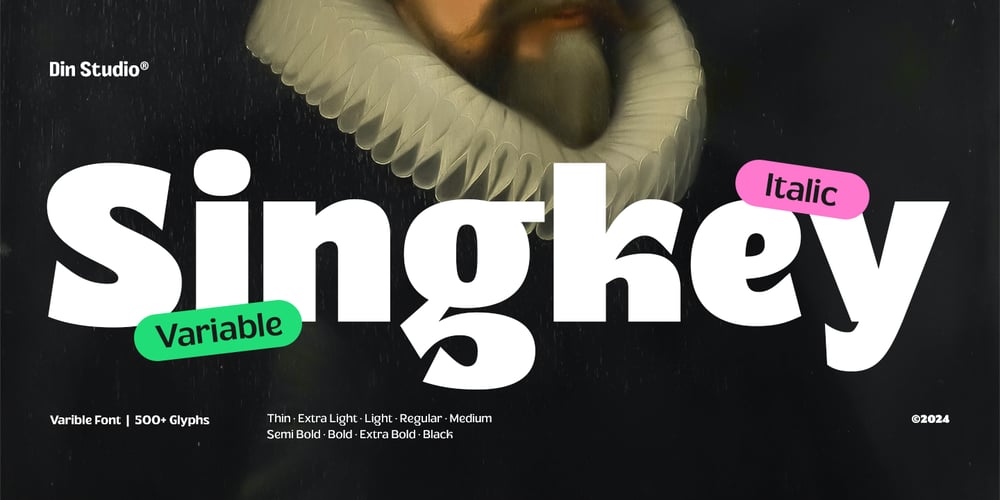
Singkey Font Family was designed by Donis Miftahudin and published by Din Studio. Singkey contains 18 styles and family package options. Singkey is a versatile sans serif font family designed in a clean and modern style. Made in 9 different weights and matching italic versions, Rimland offers complete freedom and flexibility for any project. This font family delivers a contemporary and professional touch to elevate your designs.Singkey’s different weight fonts : Thin (Regular/Italic) Extra Light (Regular/Italic) Regular (Regular/Italic) Medium (Regular/Italic) Semi Bold (Regular/Italic) Extra Bold (Regular/Italic) Black (Regular/Italic) Features: Multilingual Supports PUA Encoded Numerals and Punctuations Singkey fits in headlines, logos, posters, invitation, branding materials, packaging, print media, editorial layouts, and many more designs. Find out more ways to use this font by taking a look at the font preview.Thanks for purchasing our fonts. Hopefully, you have a great time using our font. Feel free to contact us anytime for further information or when you have trouble with the font. Thanks a lot and happy designing.